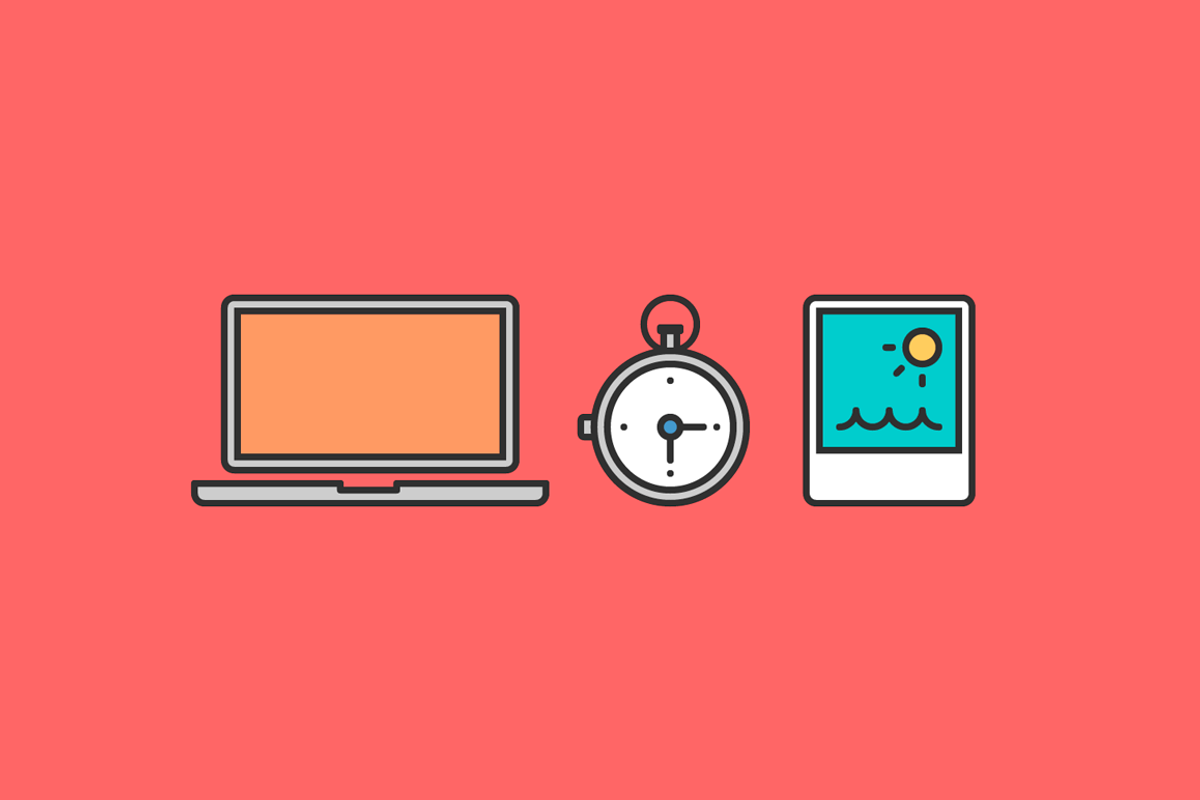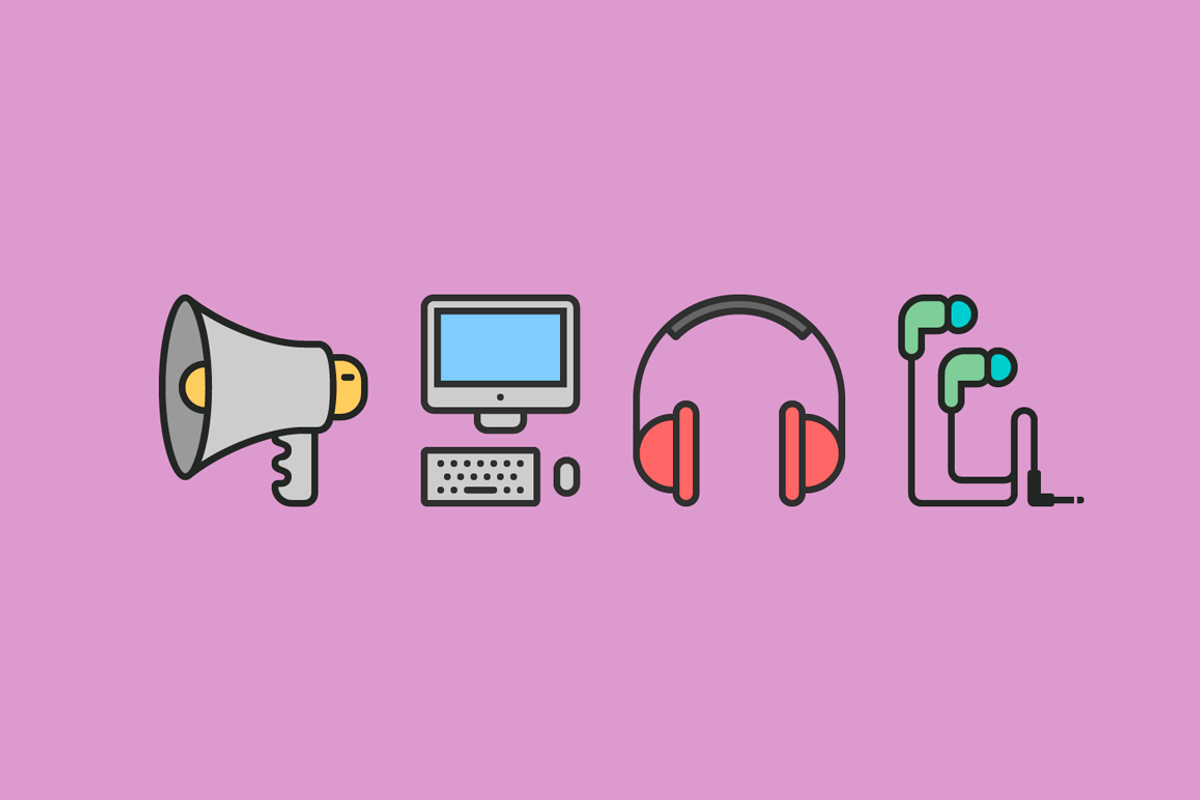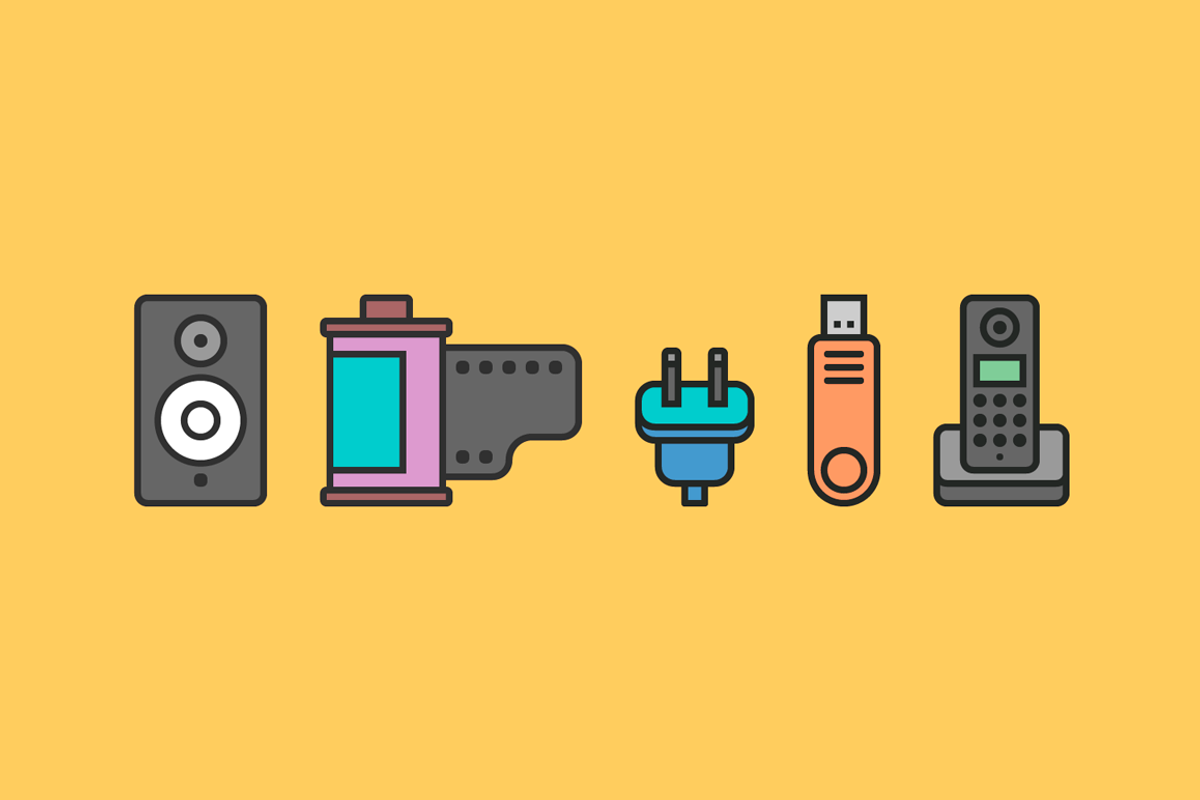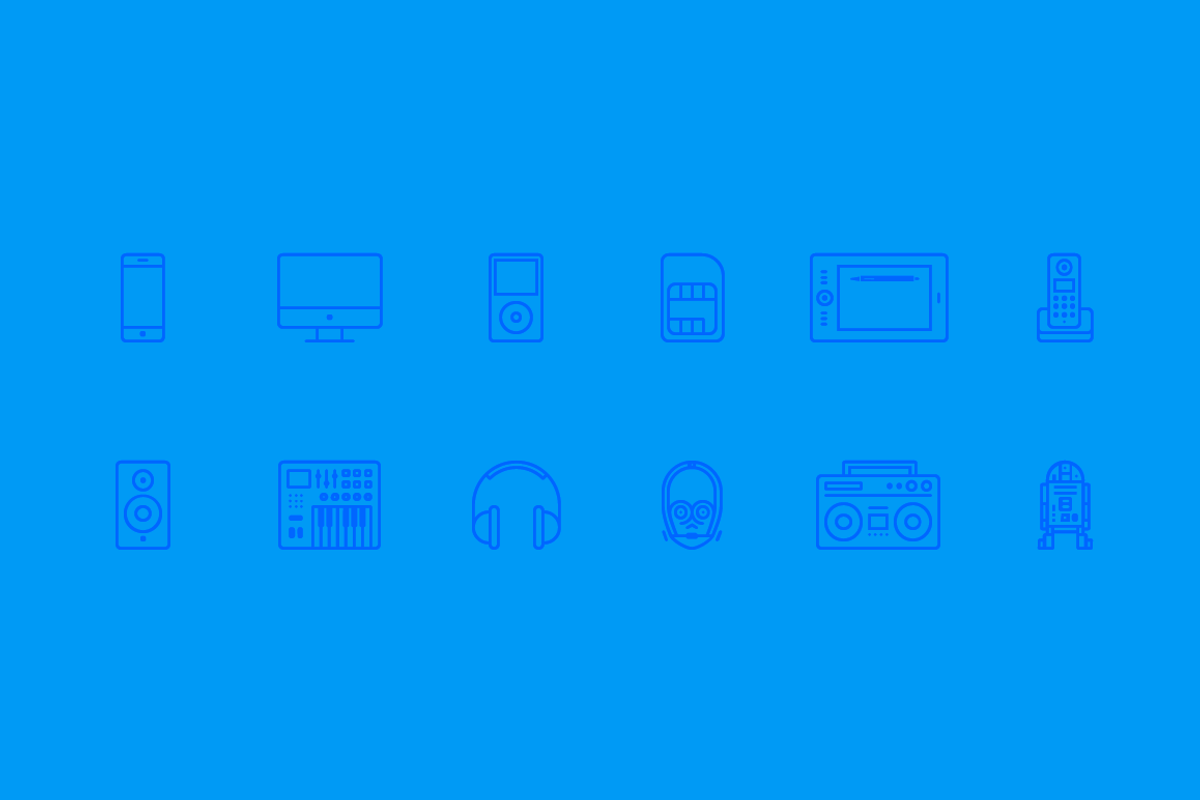
RNS Pictográfica Dispositivos
RNS Pictográfica Dispositivos by RNS Fonts is a font selected for branding, posters, packaging, typography.
Why RNS Pictográfica Dispositivos is worth a look
RNS Pictográfica Dispositivos by RNS Fonts fits naturally into Branding, posters, packaging, typography.